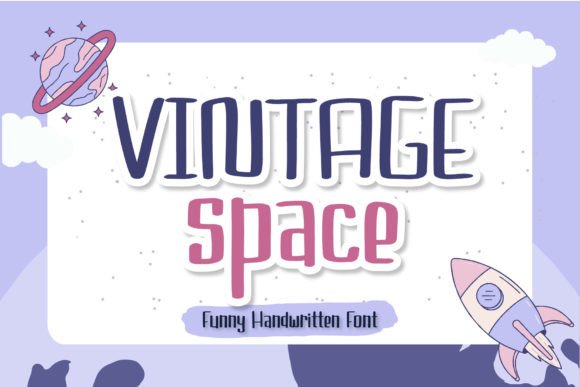
Journey through the cosmos with Vintage Space, a font that captures the spirit of discovery and adventure. Step into a world of wonder and let your imagination soar as you explore the vastness of space. Vintage Space is not just a font; it's a passport to a universe filled with possibilities.
With its playful and quirky style, Vintage Space brings a touch of whimsy to your designs. Its hand-drawn characters exude a sense of warmth and authenticity, making it perfect for creating logos, social media posts, posters, and greeting cards that resonate with your audience.
Whether you're a seasoned designer or just starting, Vintage Space is a font that will ignite your creativity. Its versatility knows no bounds, allowing you to craft designs that are as unique and captivating as the cosmos itself. From playful invitations to eye-catching headlines, Vintage Space will add a touch of magic to your every creation.
- Ignite your creativity and explore new design horizons.
- Capture the spirit of discovery and adventure in your designs.
- Bring a touch of playfulness and quirkiness to your projects.
- Make a statement with logos, posters, and greeting cards that stand out from the crowd.
- Connect with your audience on a personal level through authentic and hand-drawn characters.
- Unleash your imagination and create designs that are as unique and captivating as the cosmos itself.